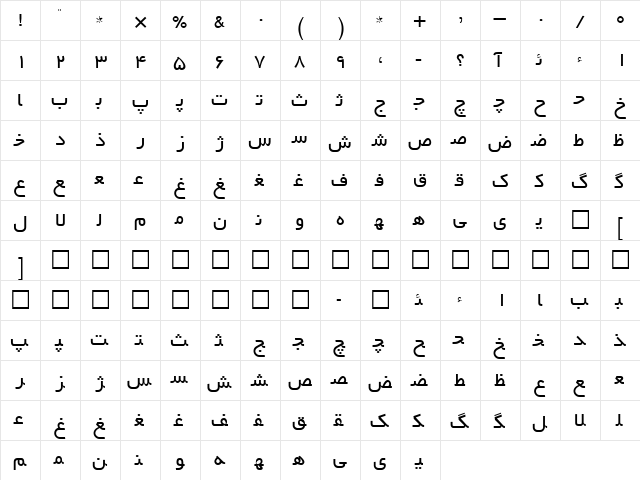
Irnafont_10 Normal
Design Context for Irnafont_10 Typeface
Irnafont_10 offers clean, dependable letterforms without strong stylistic allegiance, making it a practical choice for designers who need flexibility.